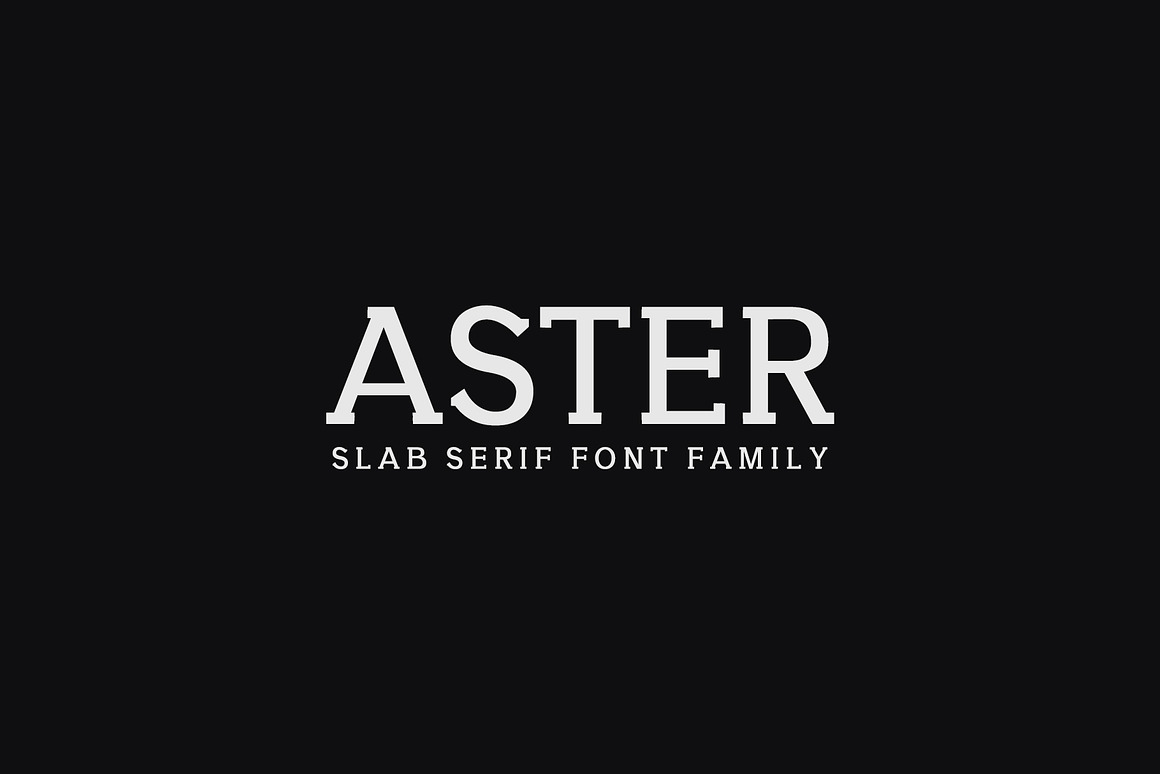
Aster Slab Serif 9 Font Family Pack
Aster Slab Serif 9 Font Family Pack is perfect for bold newspaper headlines, impactful magazine mastheads, industrial branding projects, architectural signage, vintage poster designs, craft brewery logos, editorial layouts, and commanding display typography.
Aster Slab Serif 9 Font Family Pack is exciting because it delivers powerful visual impact with robust slab serif construction and carefully balanced proportions that ensure exceptional legibility while projecting strength and authority. Its commanding presence creates striking typographic hierarchy and authentic industrial character across all applications.
Aster Slab Serif 9 Font Family Pack family includes nine comprehensive weights from thin to black with matching italic variations, providing designers with eighteen expertly crafted font styles for complete typographic flexibility and dynamic visual expression.
Aster Slab Serif 9 Font Family Pack Free Download represents the ultimate in slab serif typography designed for maximum versatility and visual impact. This exceptional typeface collection showcases masterful engineering through its robust character construction and extensive weight range that accommodates everything from subtle text applications to commanding headline displays. The font's industrial strength makes it particularly suitable for manufacturing companies, construction firms, craft industries, and media organizations requiring authoritative visual communication with distinctive mechanical character.
Editorial teams consistently choose Aster Slab Serif 9 Font Family Pack for its outstanding performance across diverse publishing applications requiring strong visual hierarchy. The font's comprehensive weight variations and sturdy construction ensure excellent readability while maintaining powerful visual presence that cuts through information clutter. Its extensive range provides unmatched flexibility for complex editorial projects demanding both subtlety and dramatic impact.
Design professionals appreciate Aster Slab Serif 9 Font Family Pack's unparalleled versatility in creating memorable brand experiences that project strength and reliability. Its comprehensive weight range transcends single-application limitations while maintaining the industrial character required for authentic mechanical positioning, making it an indispensable asset for organizations seeking complete typographic solutions through superior slab serif communication and exceptional design flexibility.